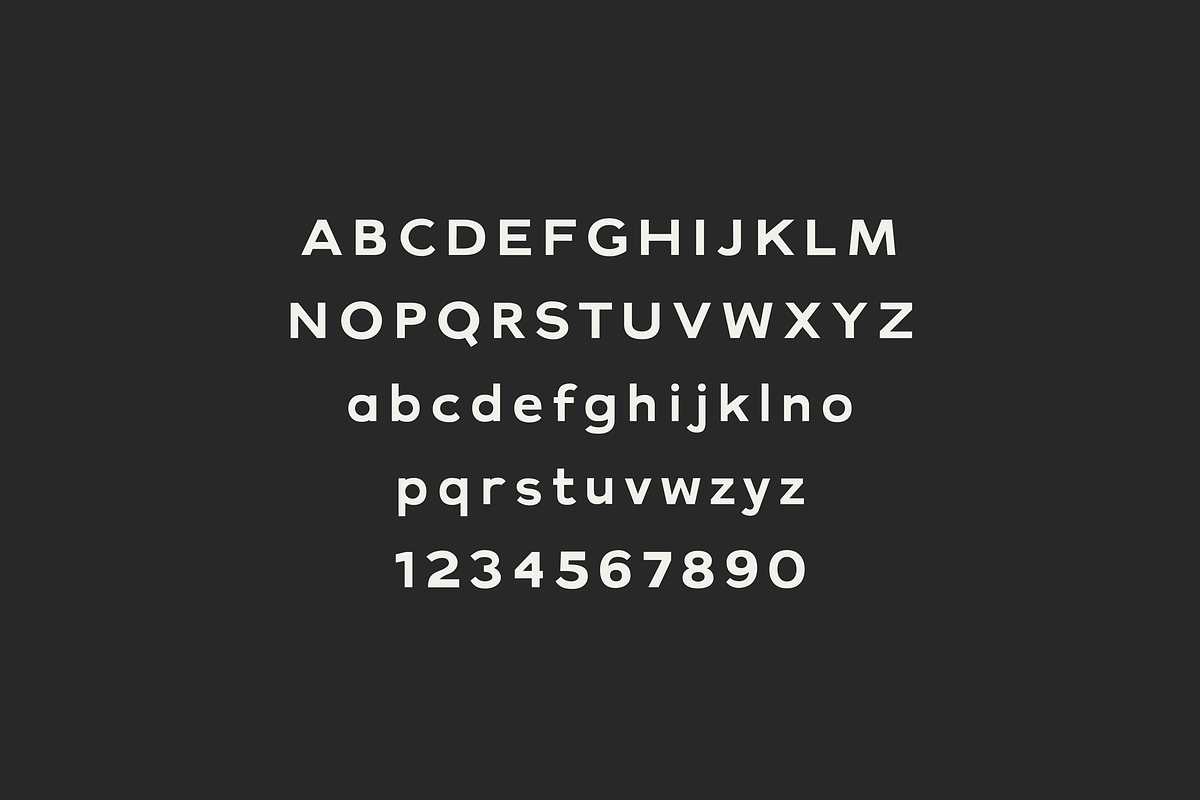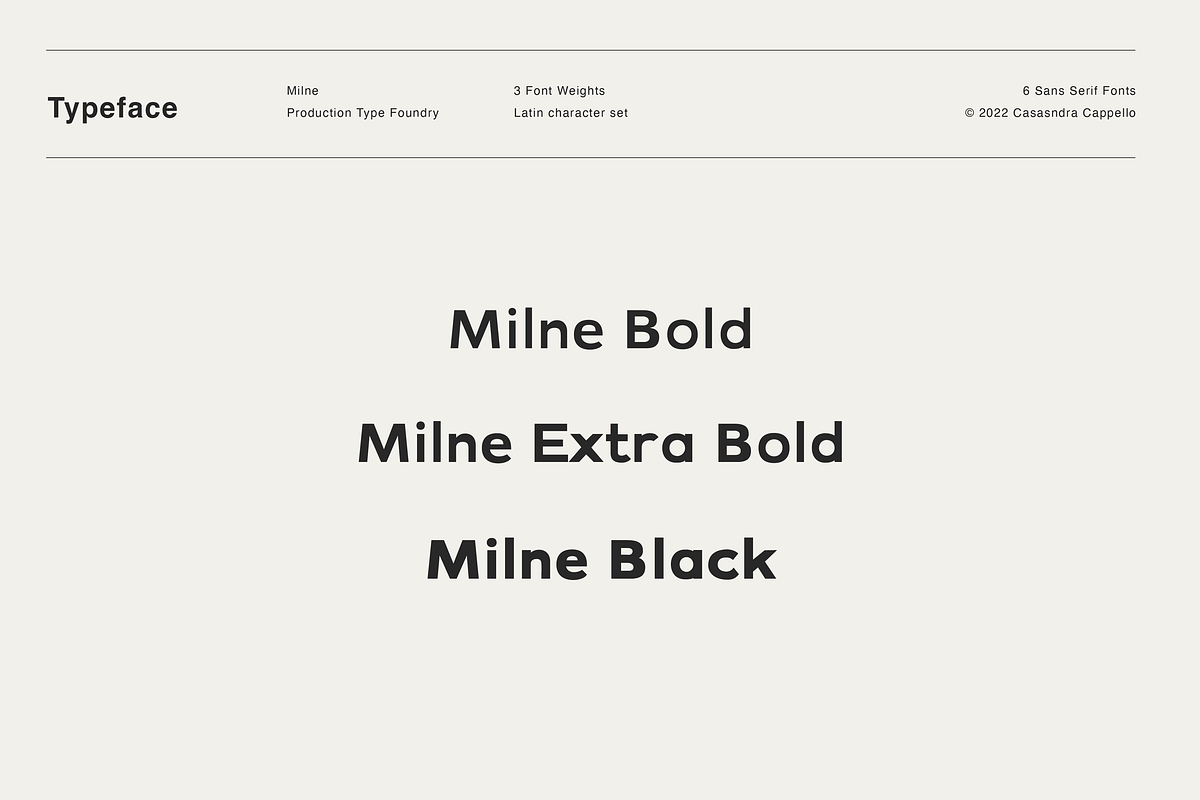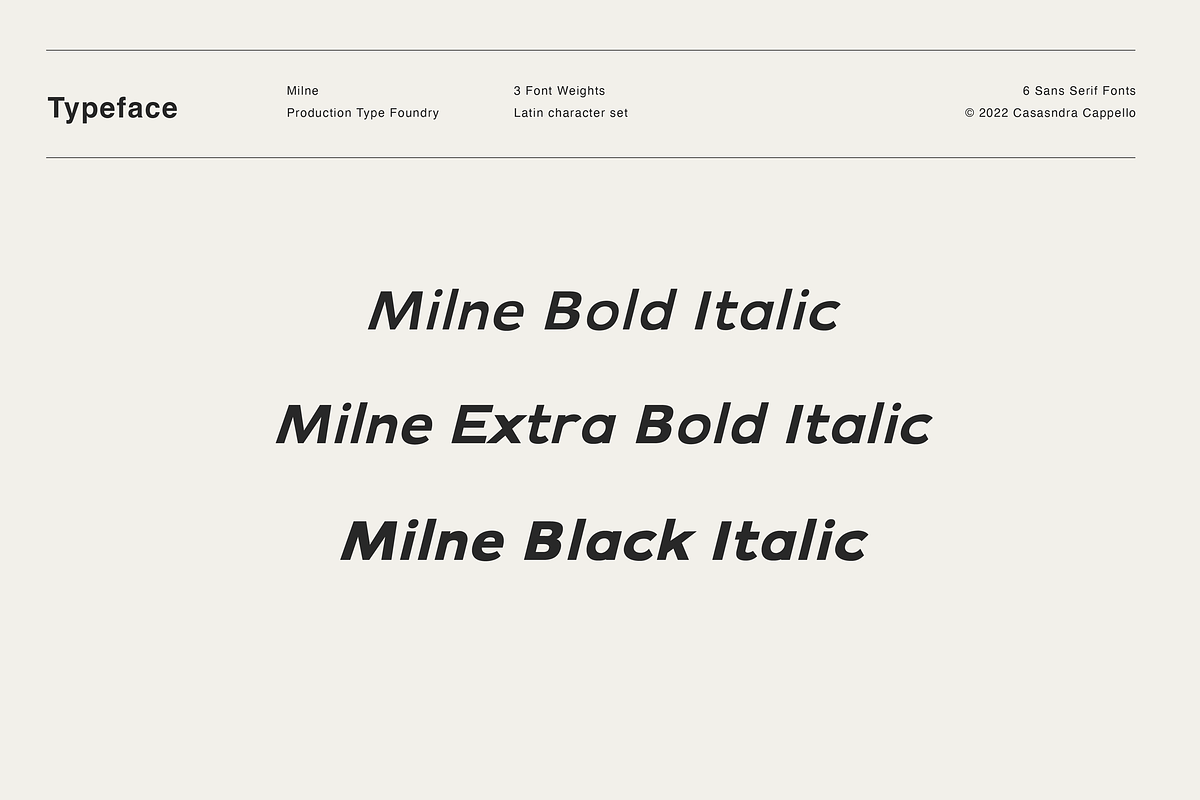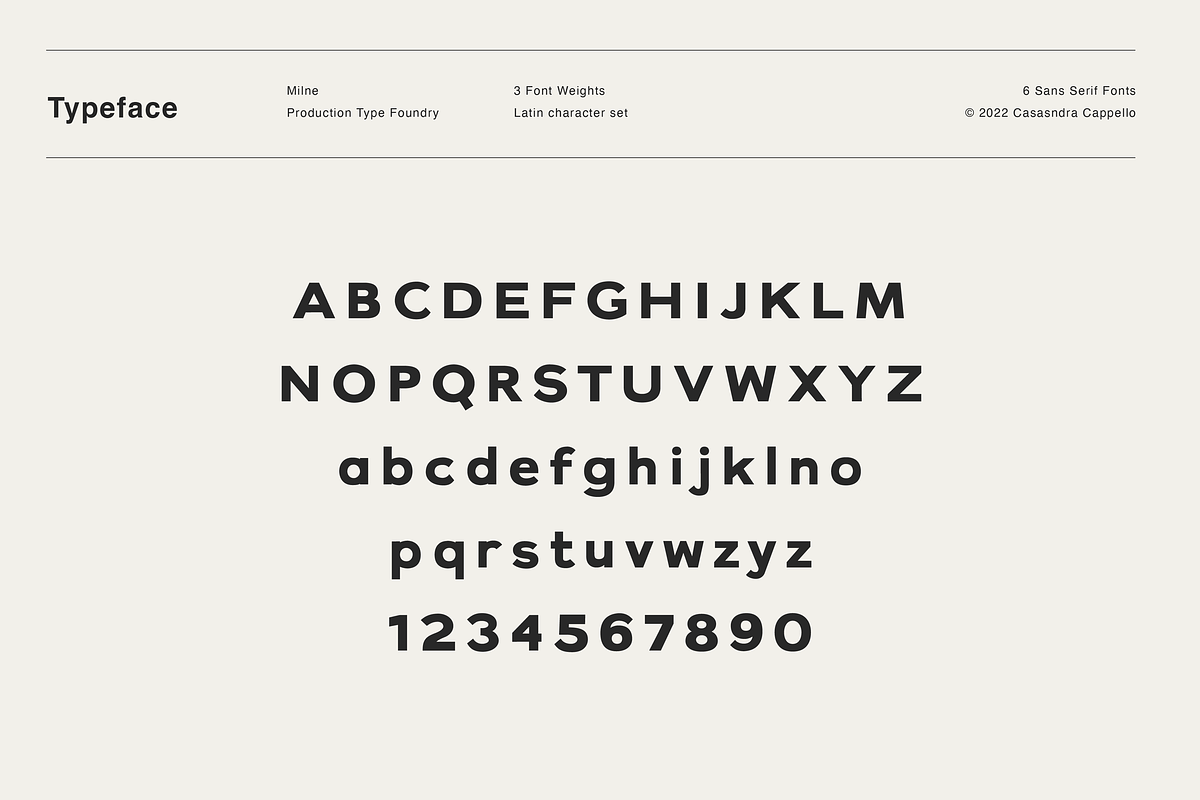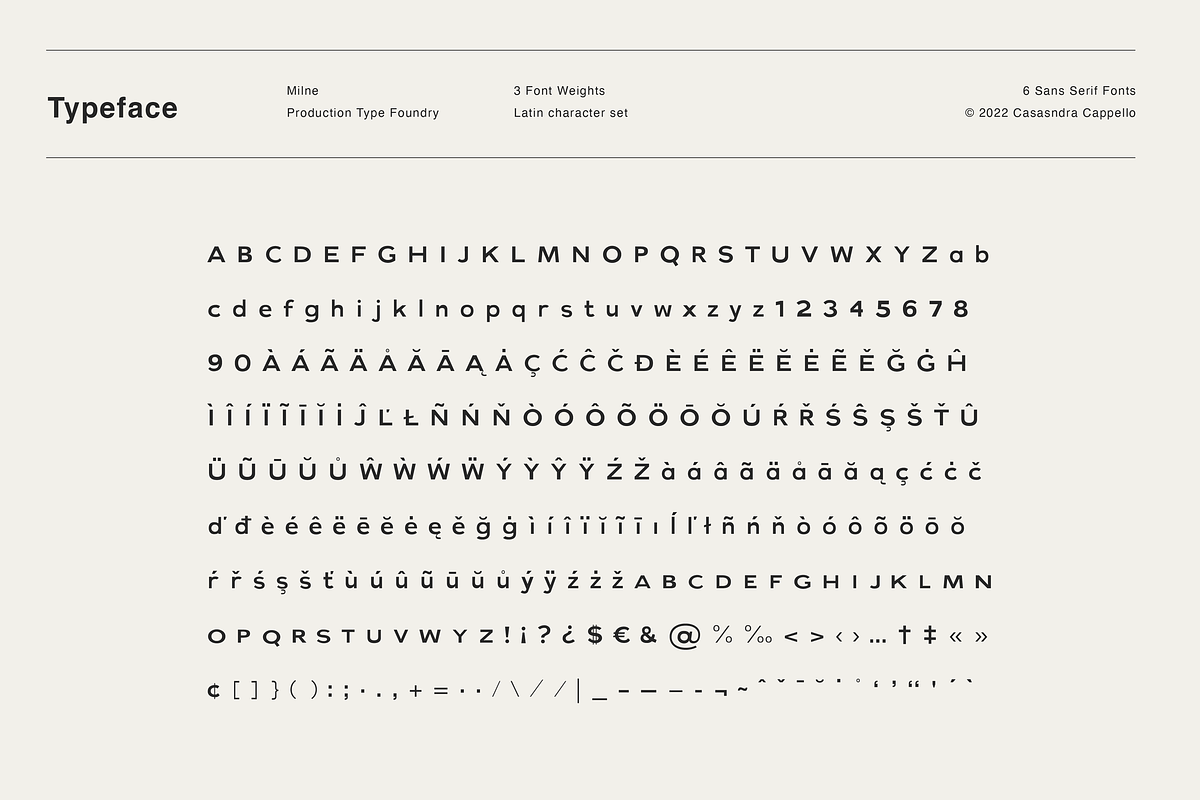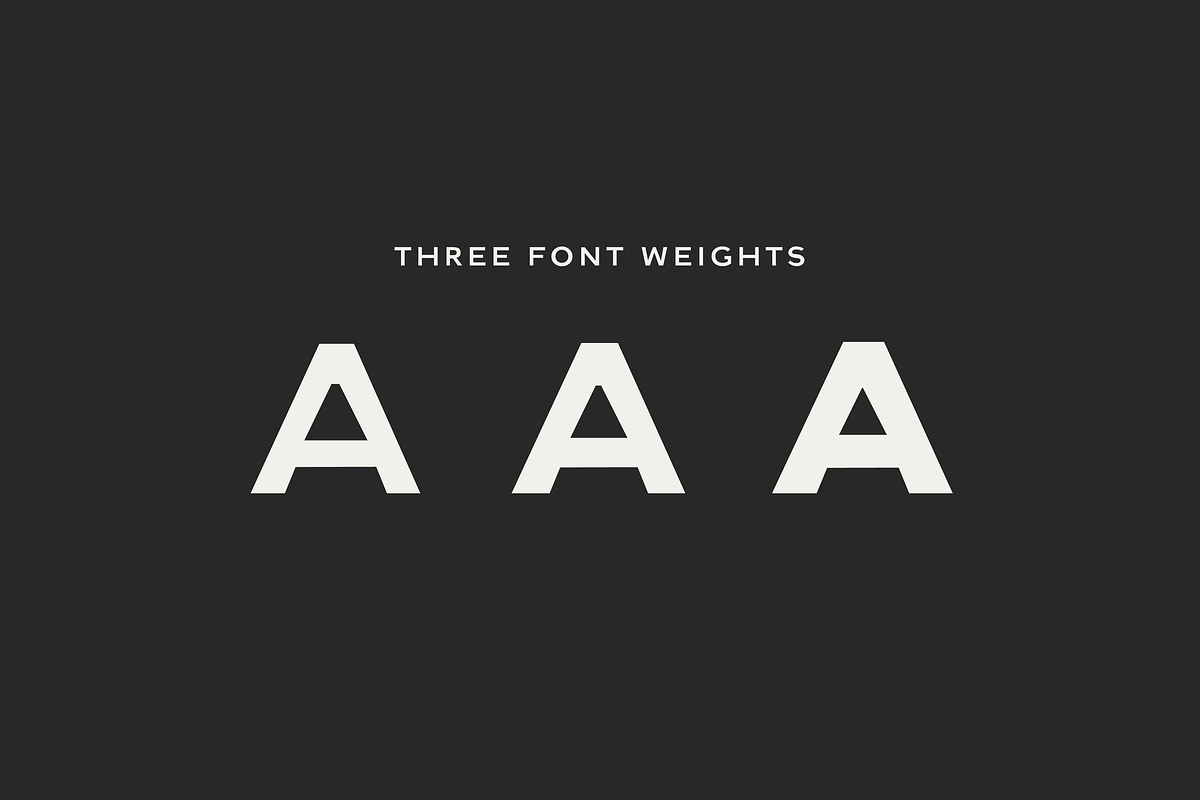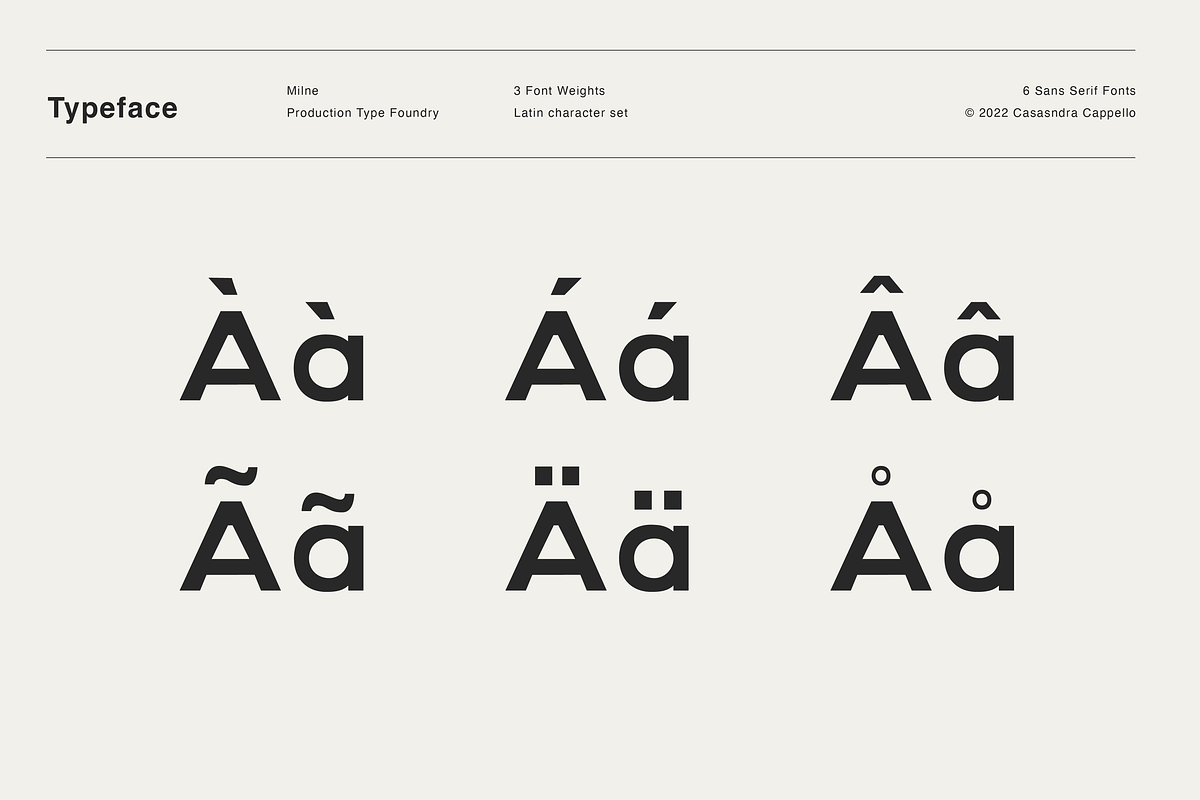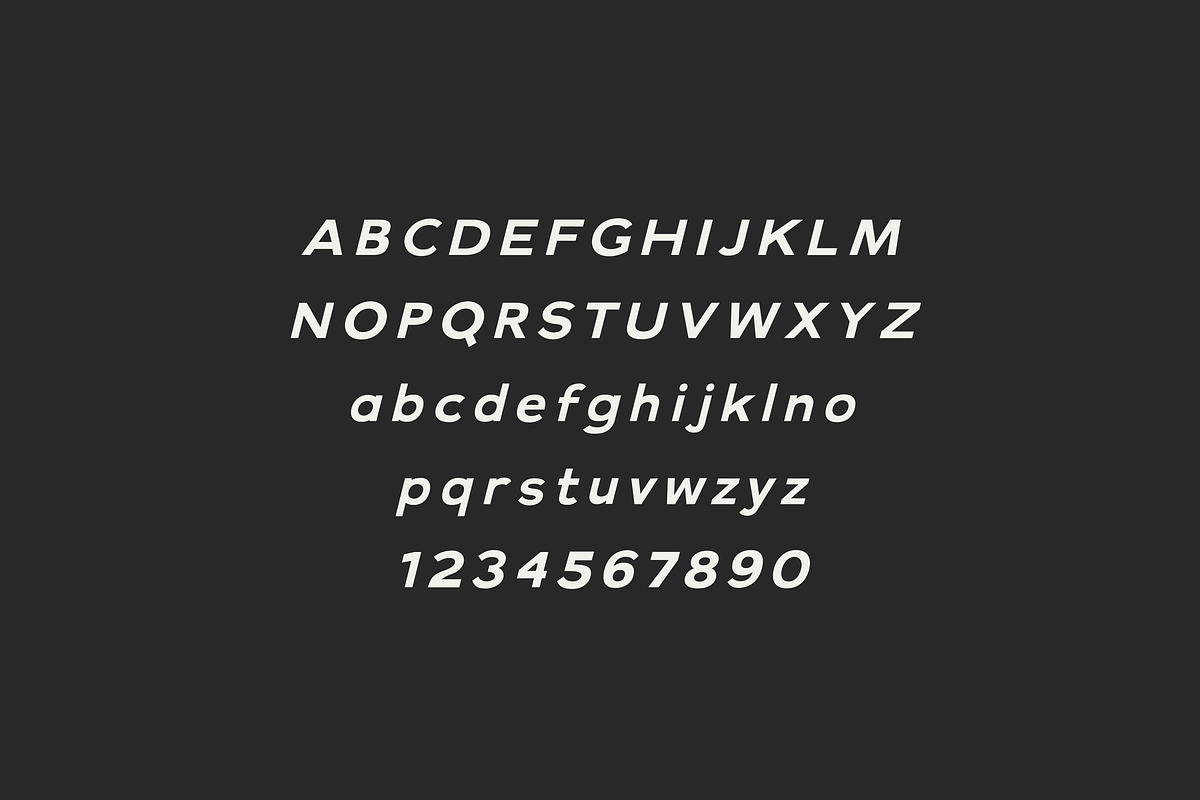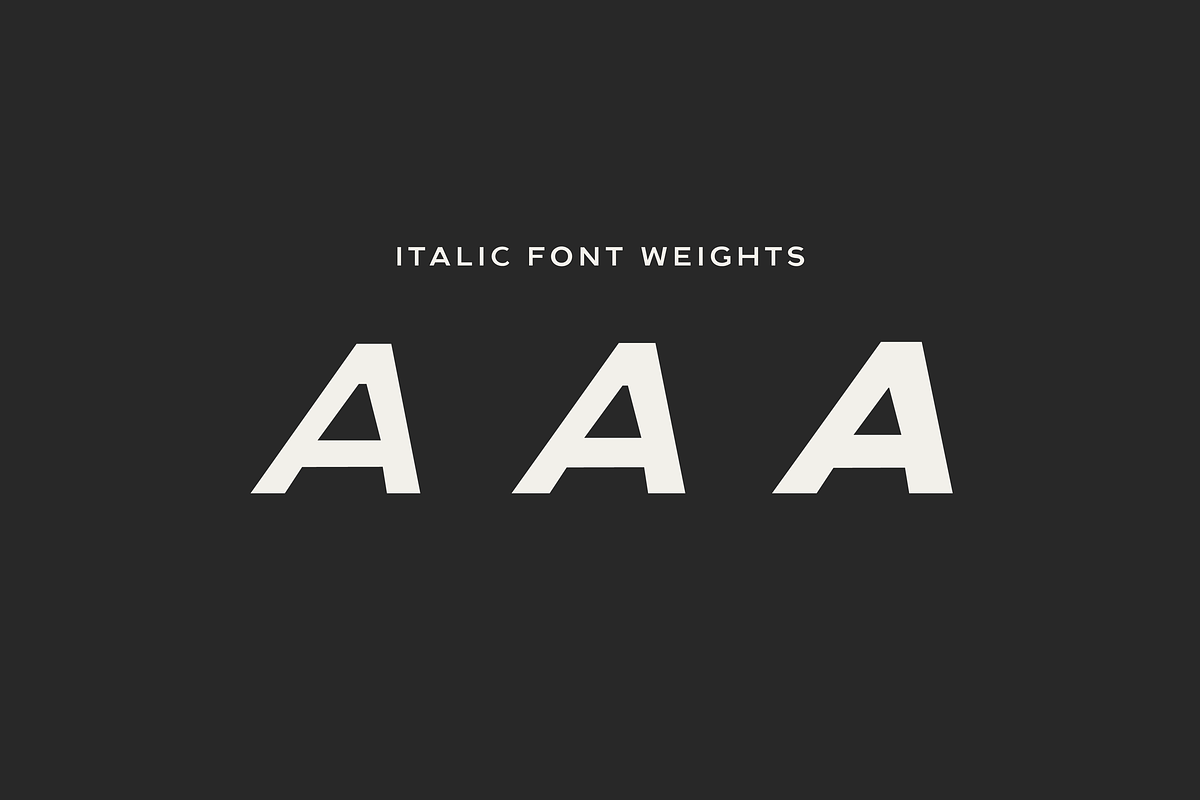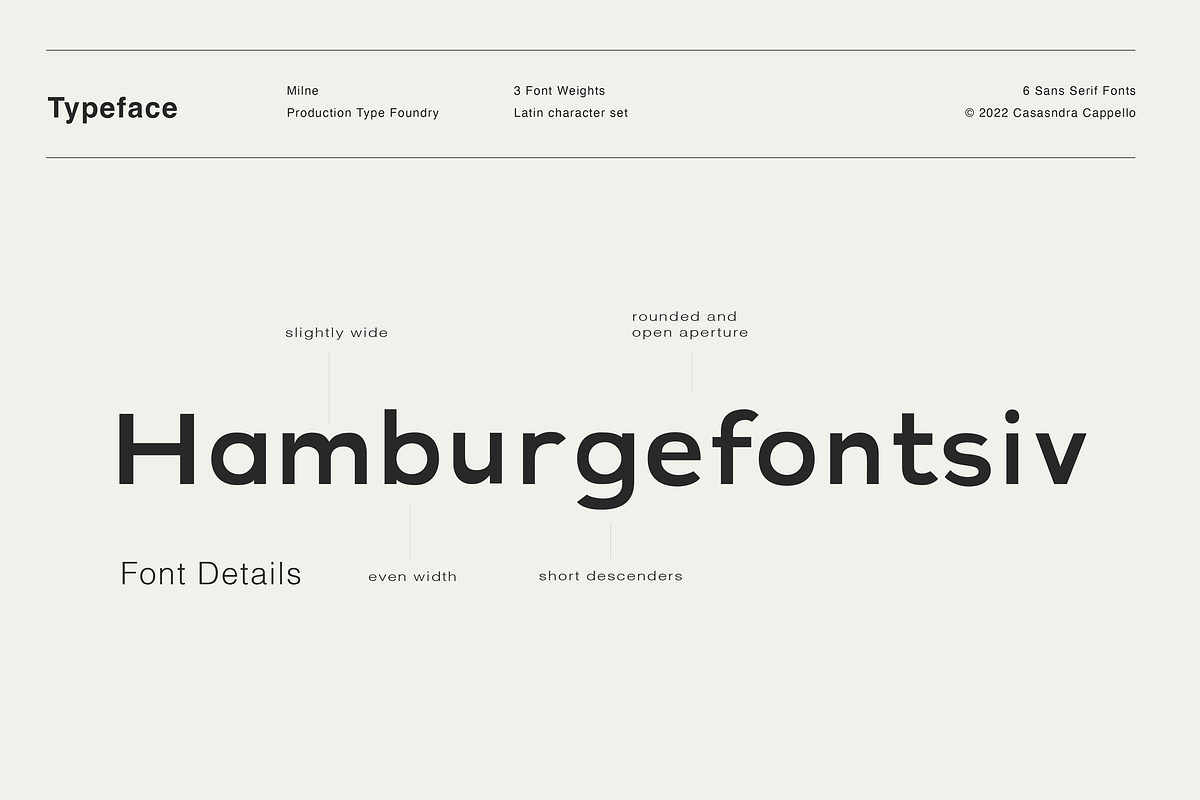
Milne - A Bold Sans Serif
Milne is a bold sans serif typeface, and when I say bold, I mean it. This font only comes in heavier weights, so it is suggested you use it for headers rather than body copy. This font family includes all Latin characters (including accents), numbers, special characters, and punctuation.
Milne includes six fonts in OTF format: Bold, Extra Bold and Black, as well as accompanying Italics